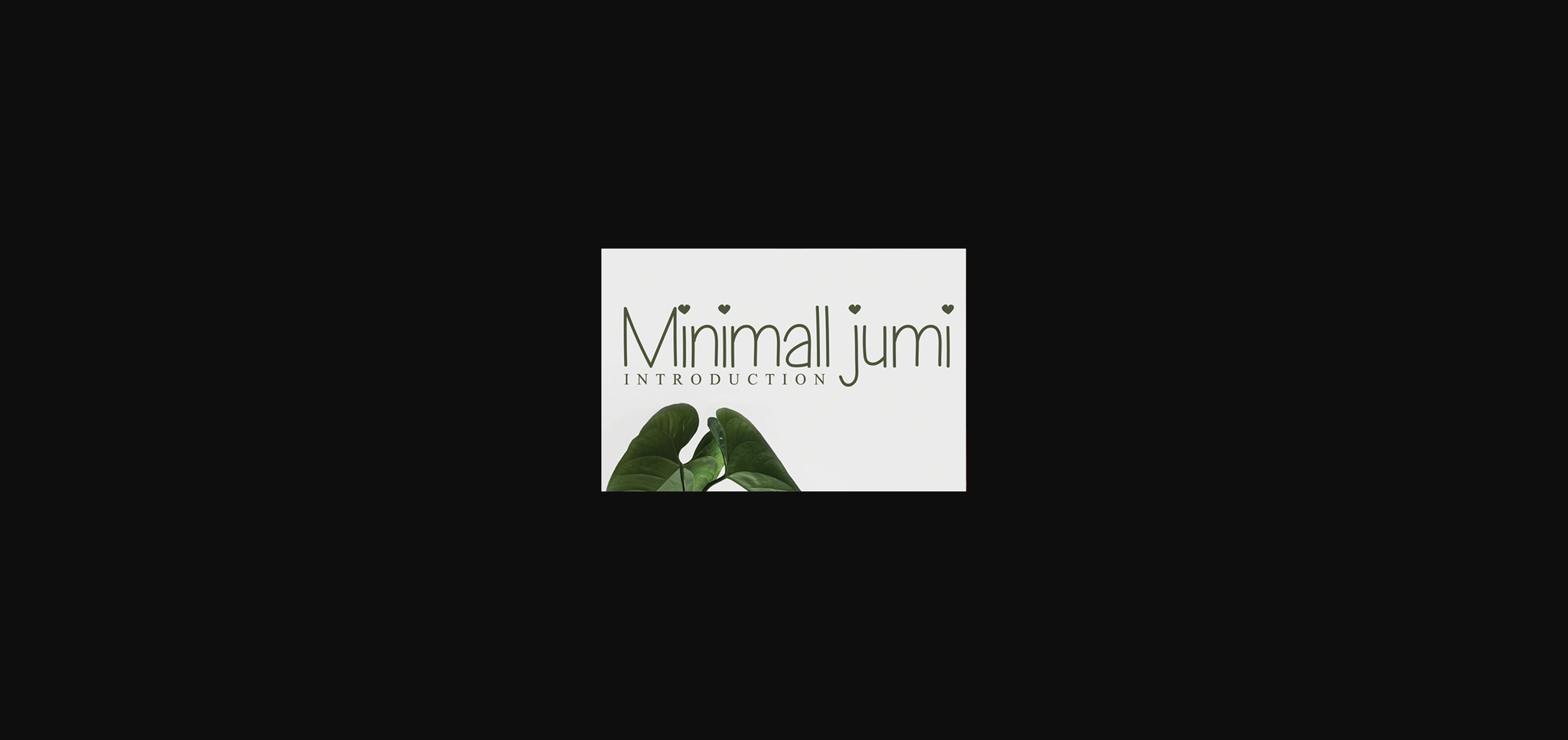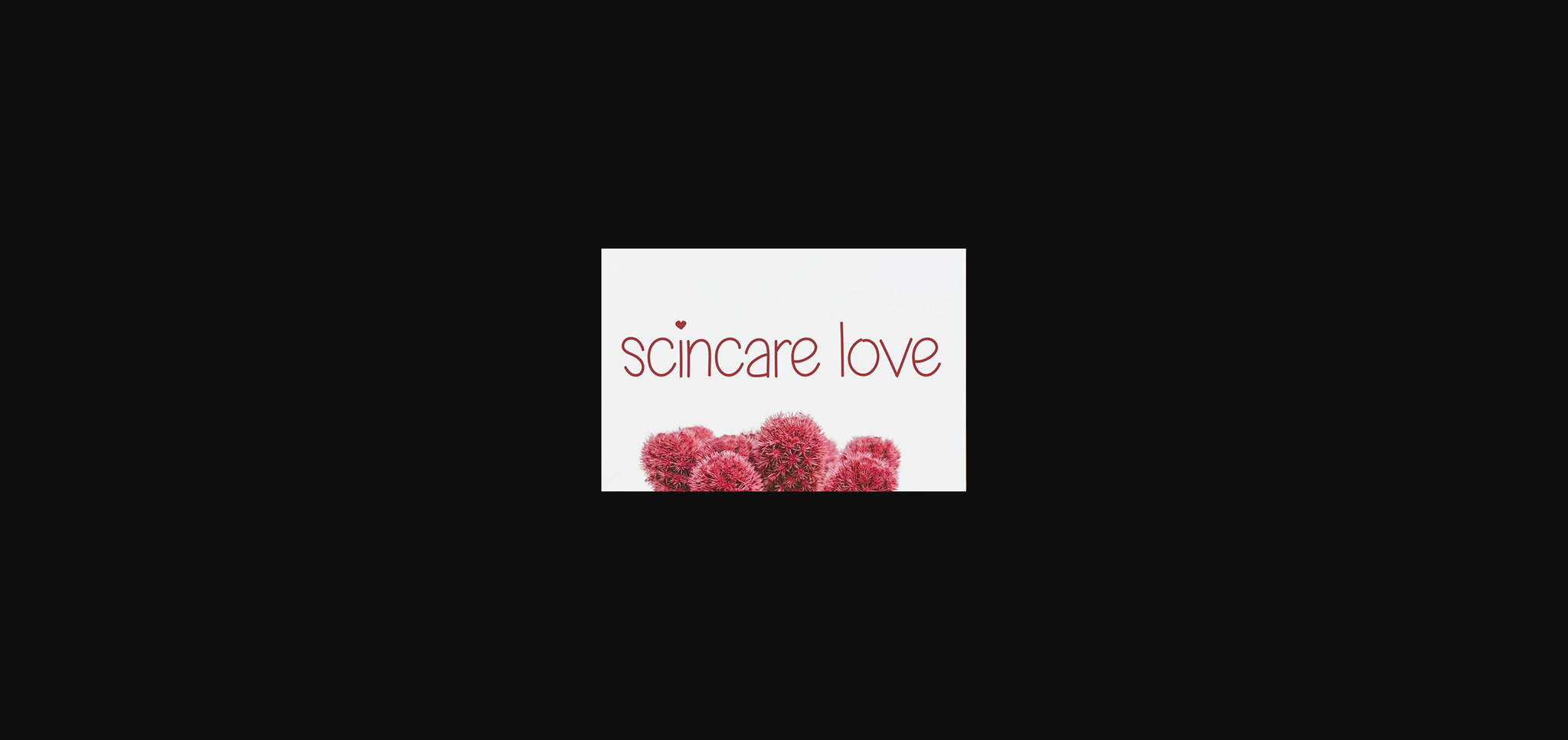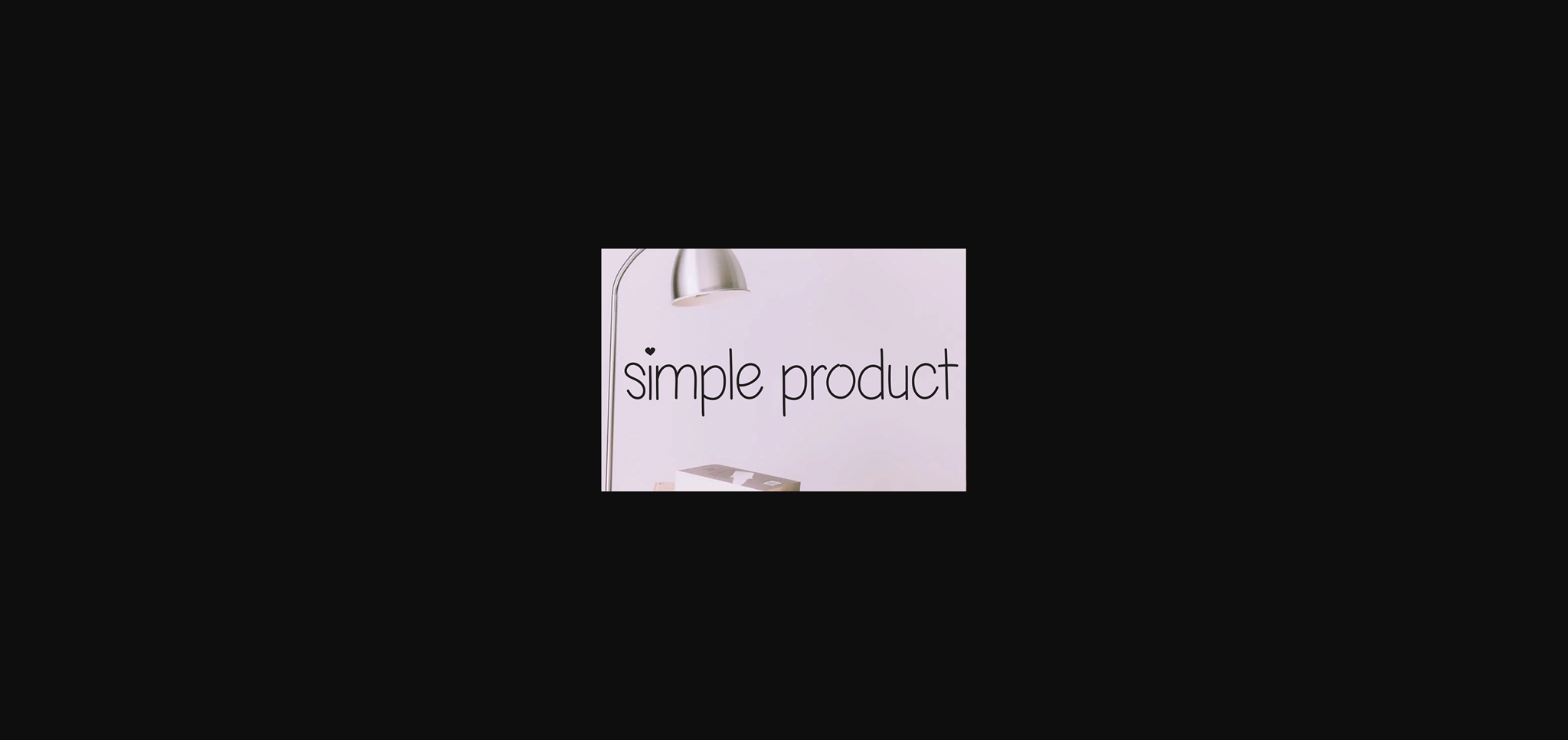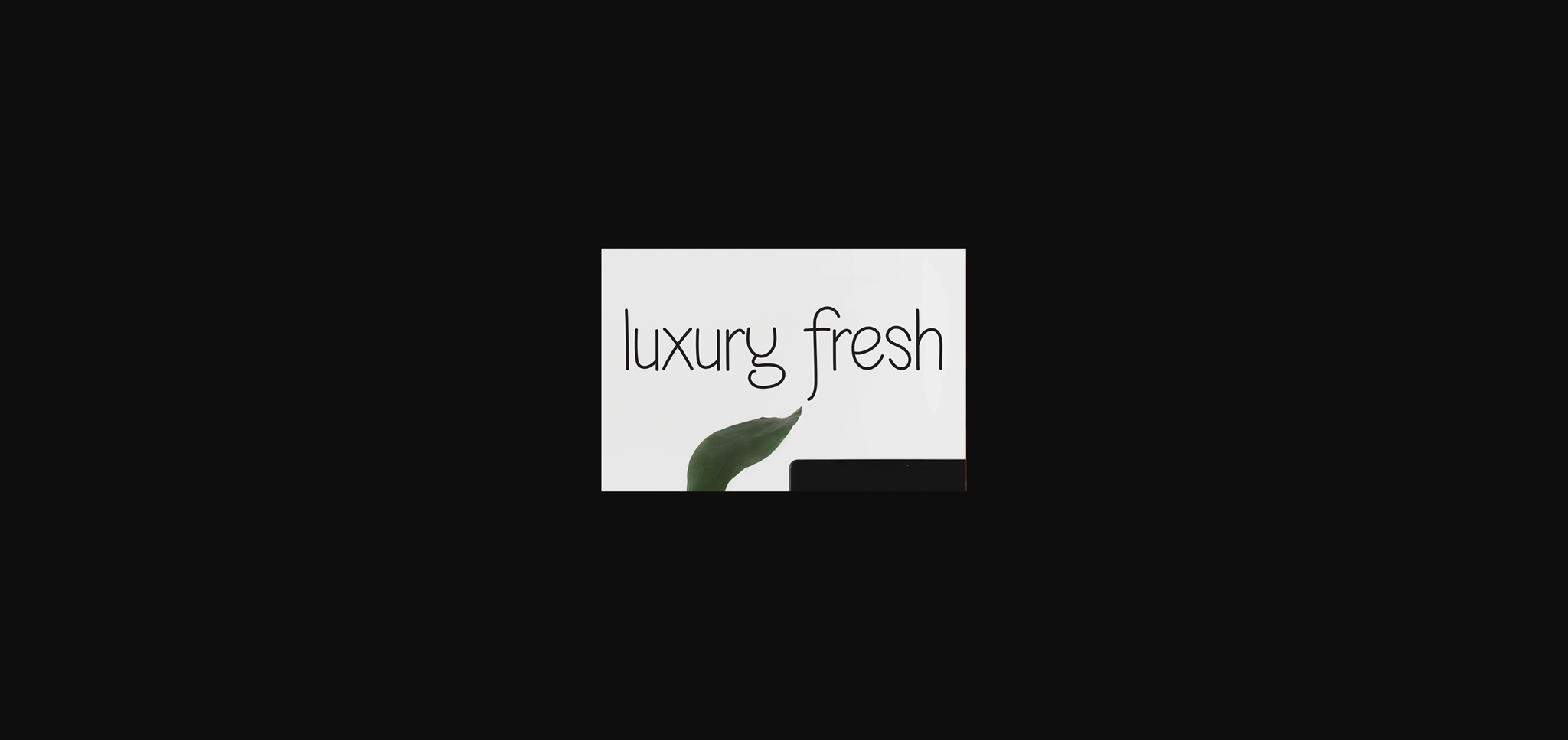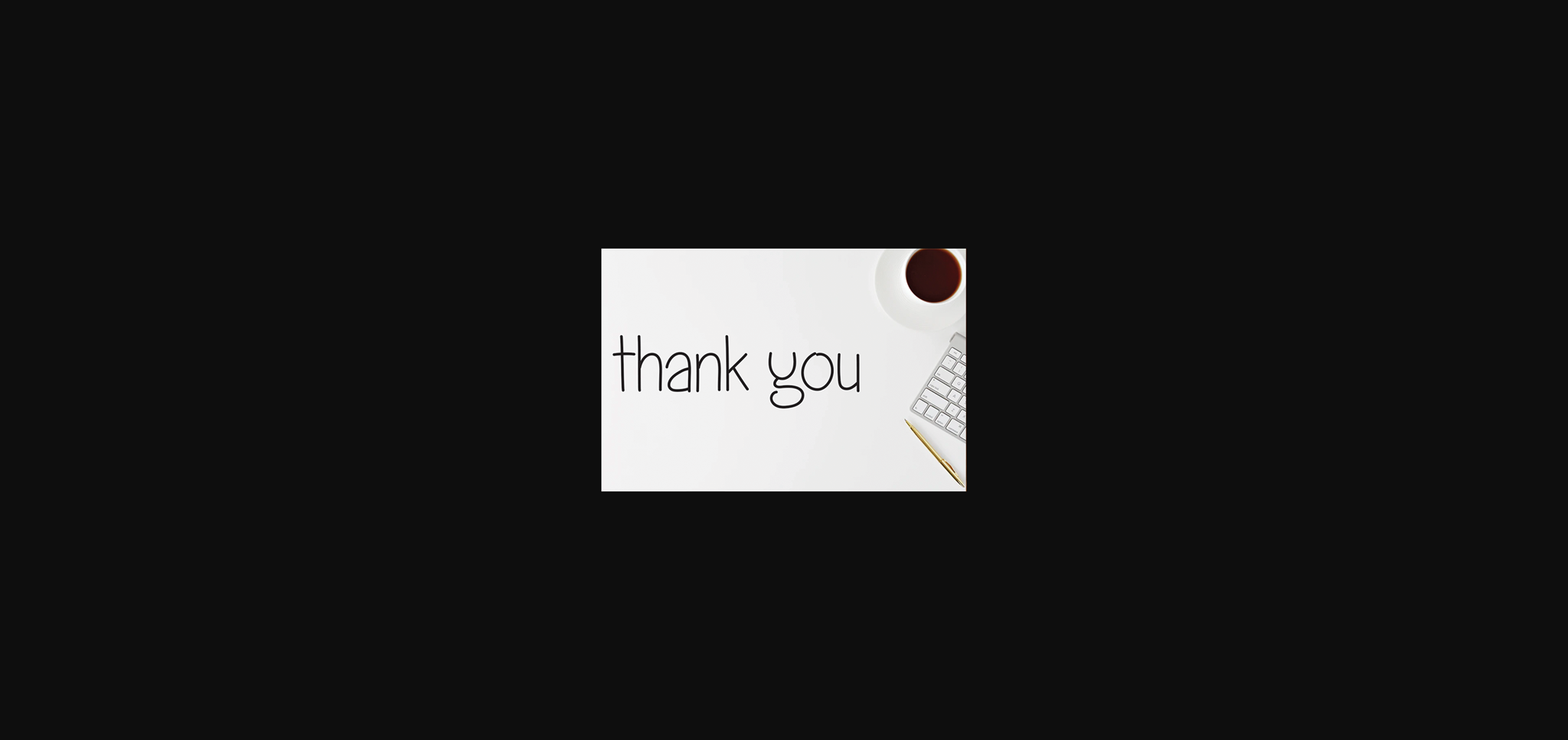
Minimall Jumi Font
About Minimall Jumi Font
Minimall Jumi is a simple and casual sans-serif font with an undeniably clean feel. With its neat and beautiful arrangement of letters, this typeface will look outstanding in both formal and non-formal designs.